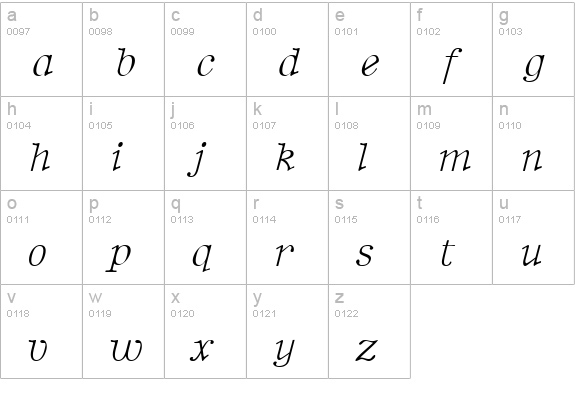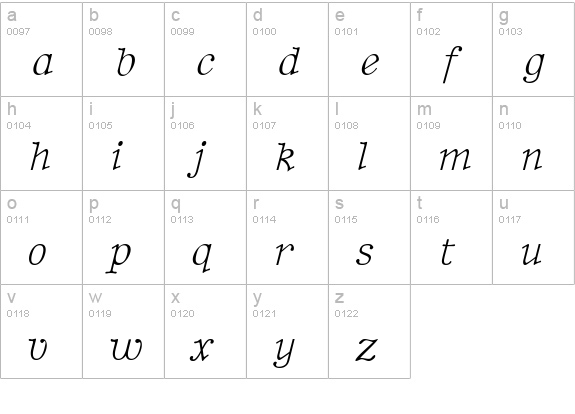
BetterTypeRightThin Italic Font Details
BetterTypeRightThin Italic is a distinctive, italic variant in the BetterTypeRightThin typeface family \xE2\x80\x94 well suited to design and typography projects.
The BetterTypeRightThin Italic font effortlessly combines elegance and modernity, making it a truly versatile choice for a wide range of design projects. With its sleek and sophisticated appearance, this font exudes a sense of refinement and sophistication, perfect for adding a touch of style to any creative endeavor. What sets BetterTypeRightThin Italic apart is its unique blend of delicate thin lines and subtly slanted italics, creating a distinctive and eye-catching look that is sure to make a statement. Whether used for branding, advertising, editorial design, or any other application, this font brings a touch of class and sophistication to any project. And the best part? BetterTypeRightThin Italic is available for free download at FontsMarket.com, making it accessible to designers and creatives of all levels. So why wait? Elevate your designs with the timeless elegance of BetterTypeRightThin Italic today!